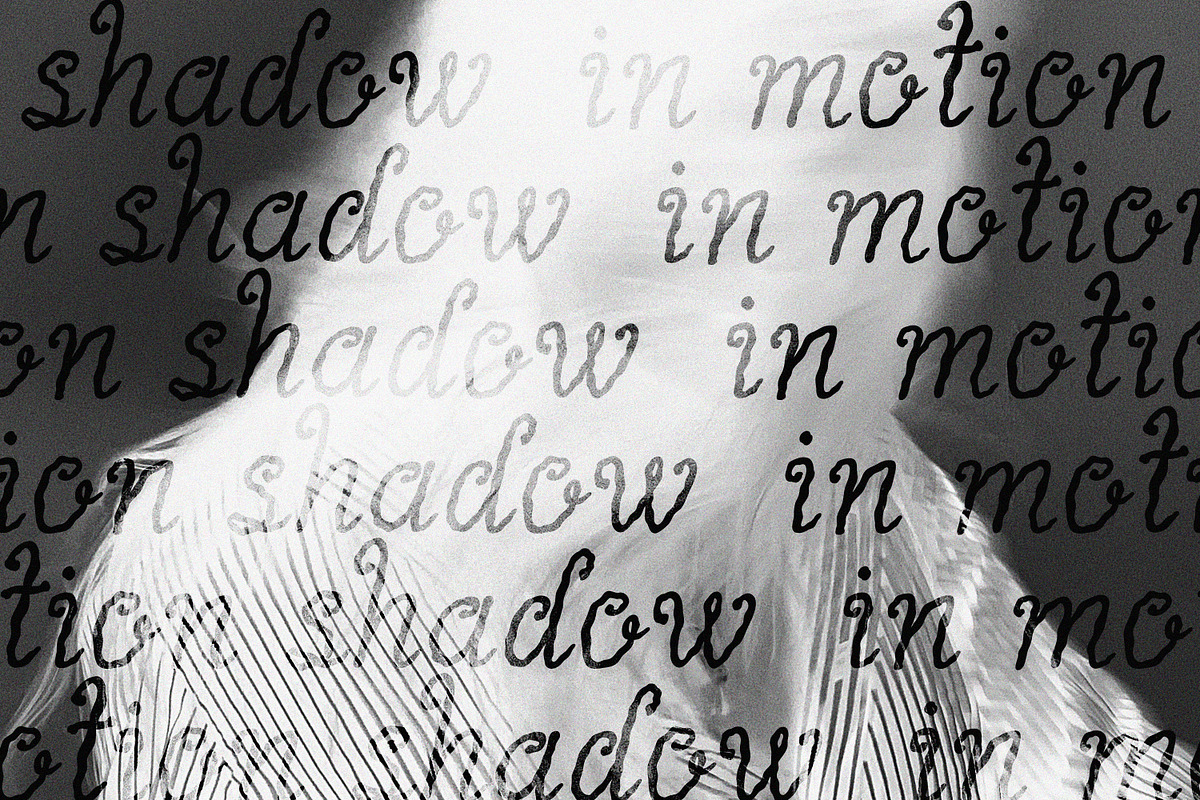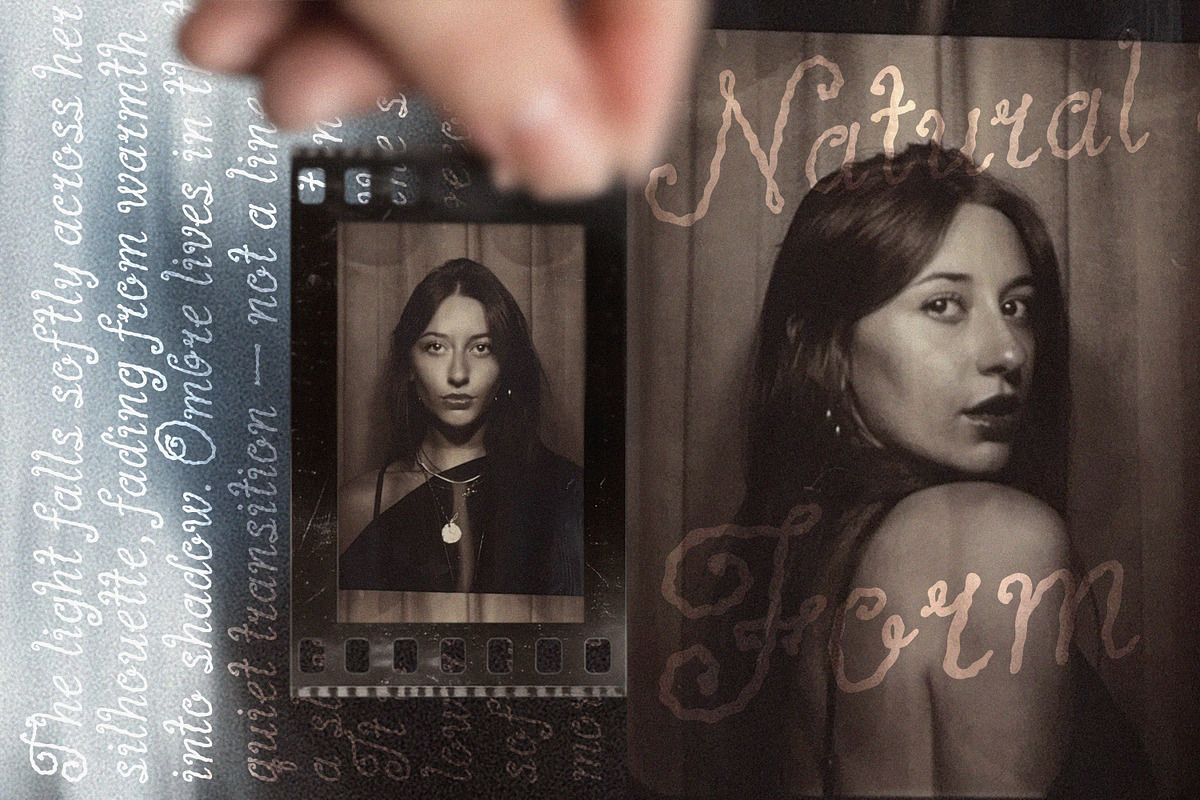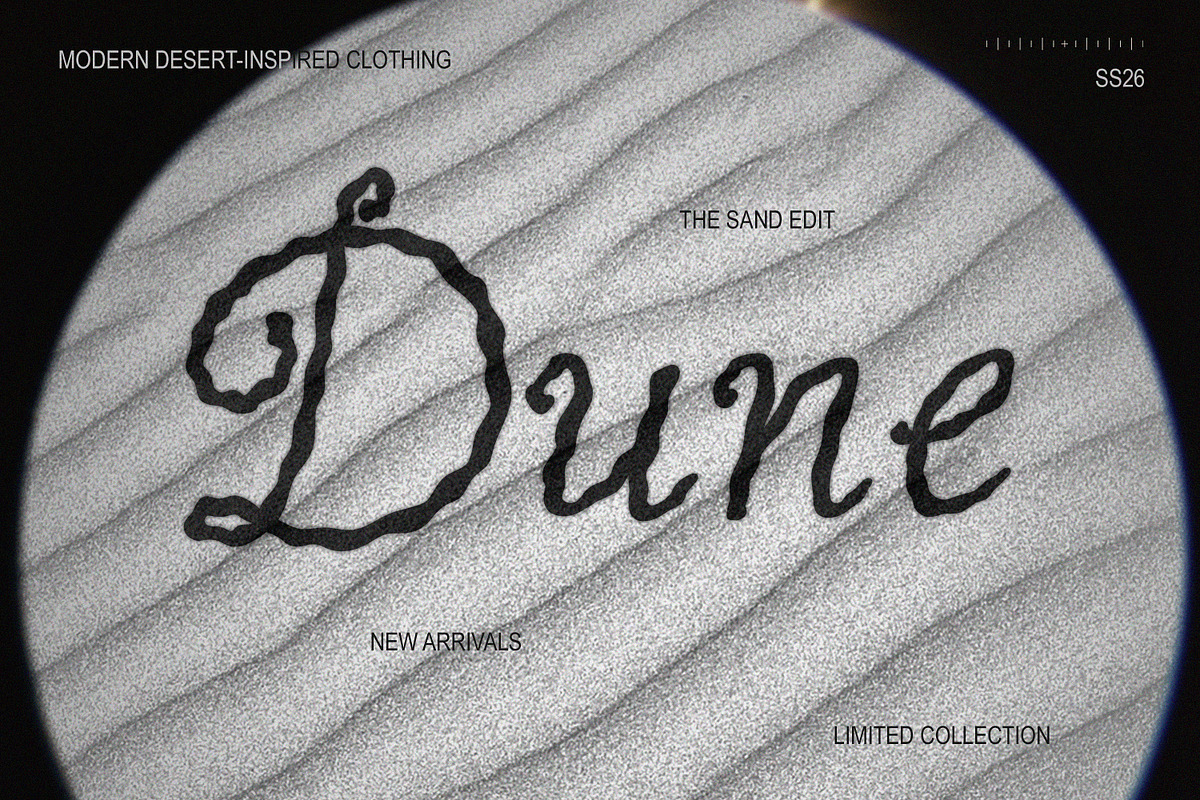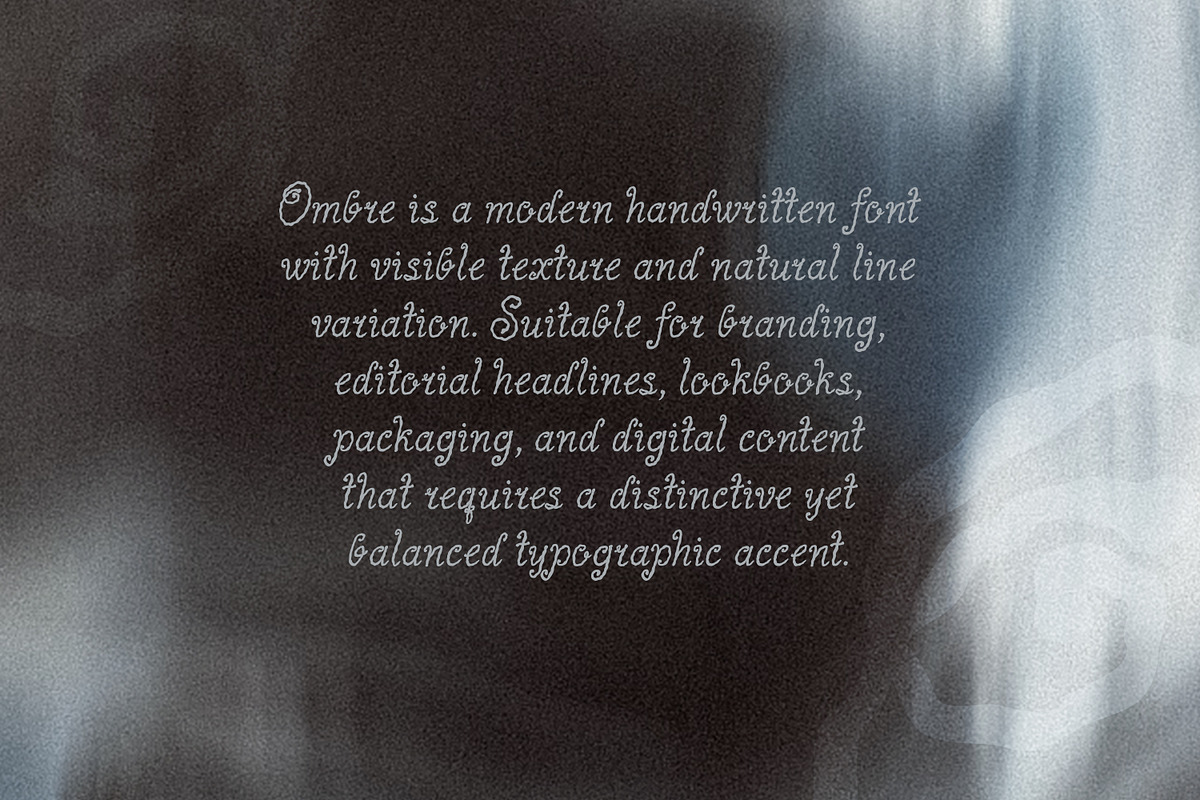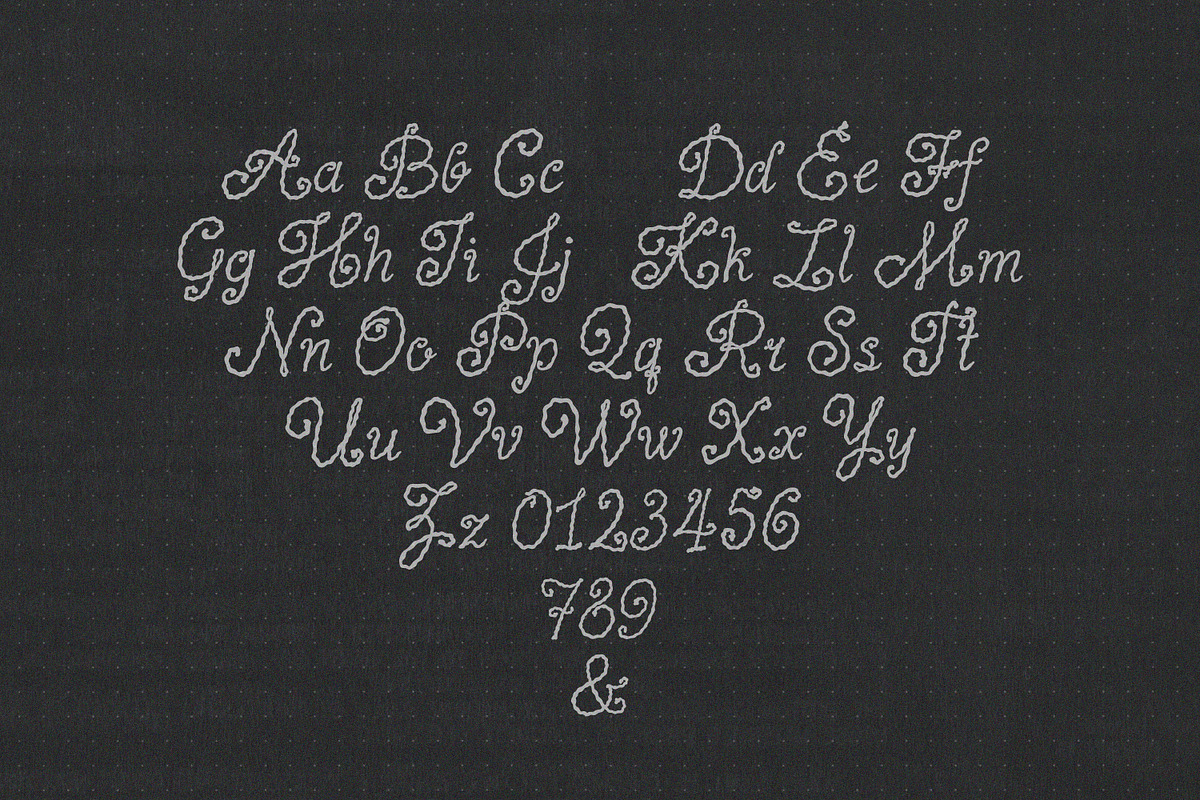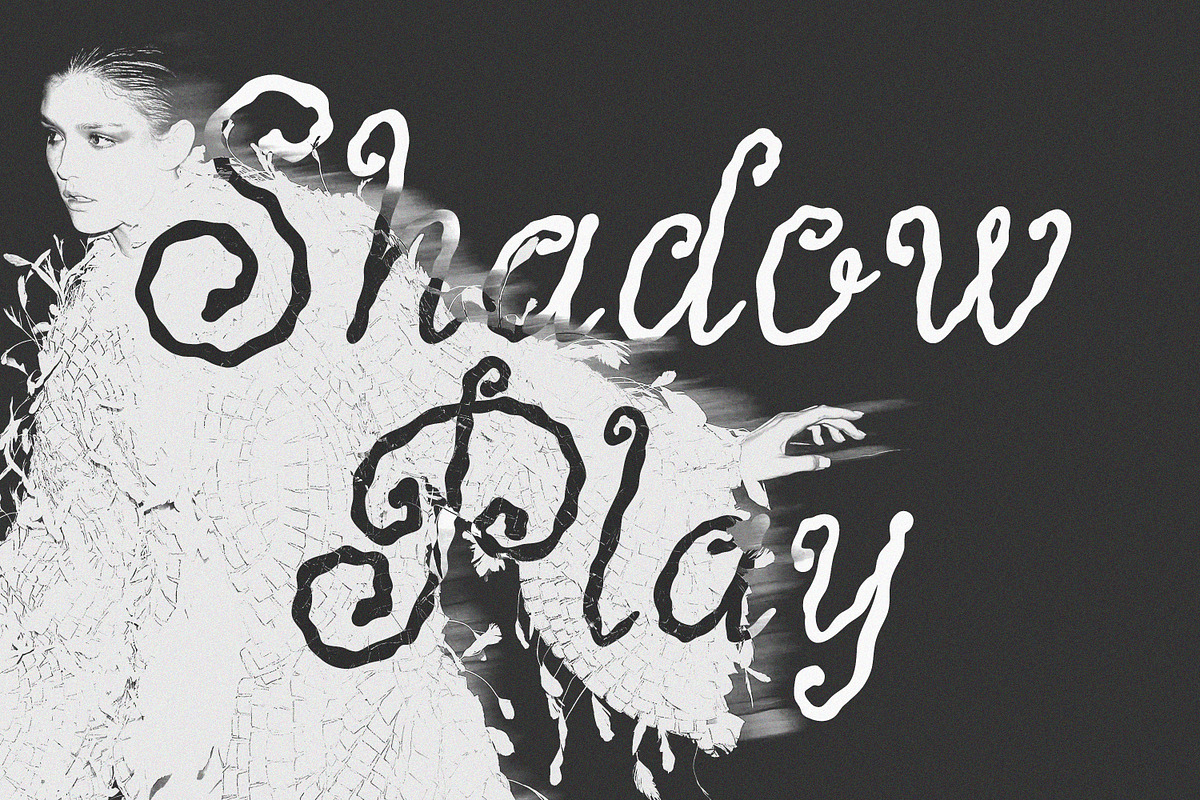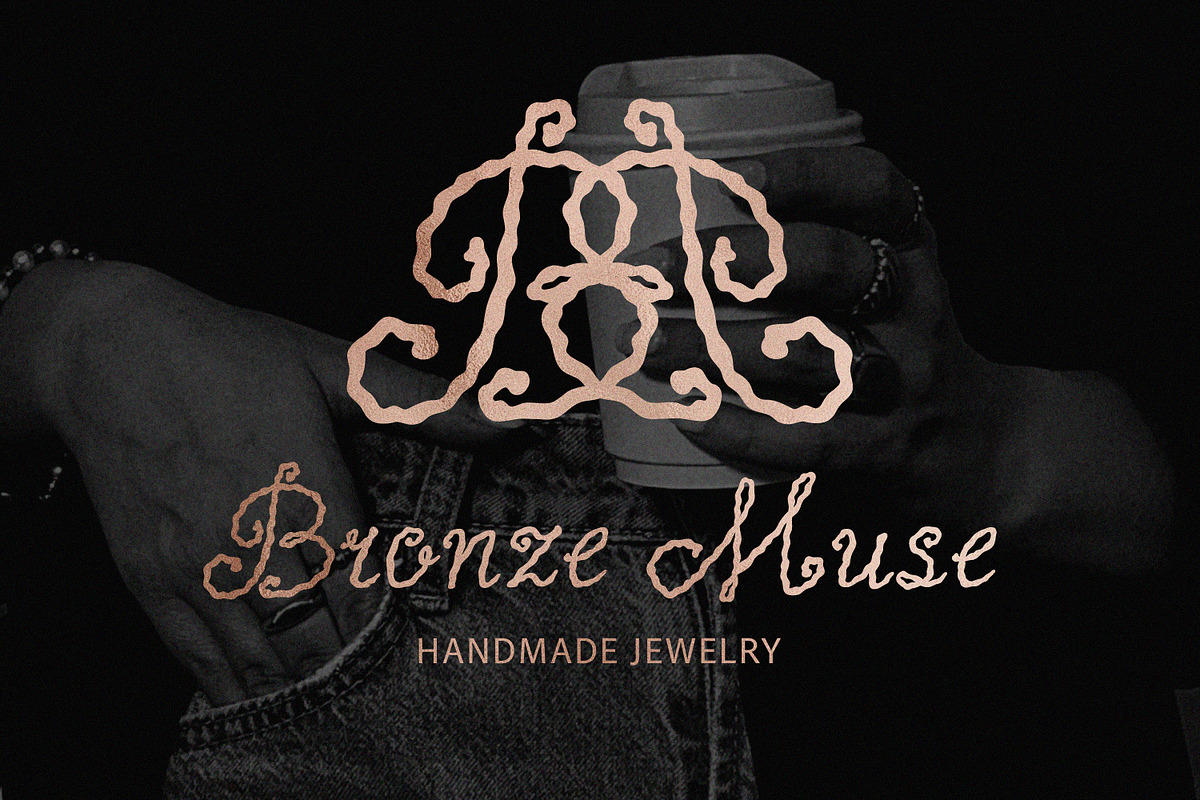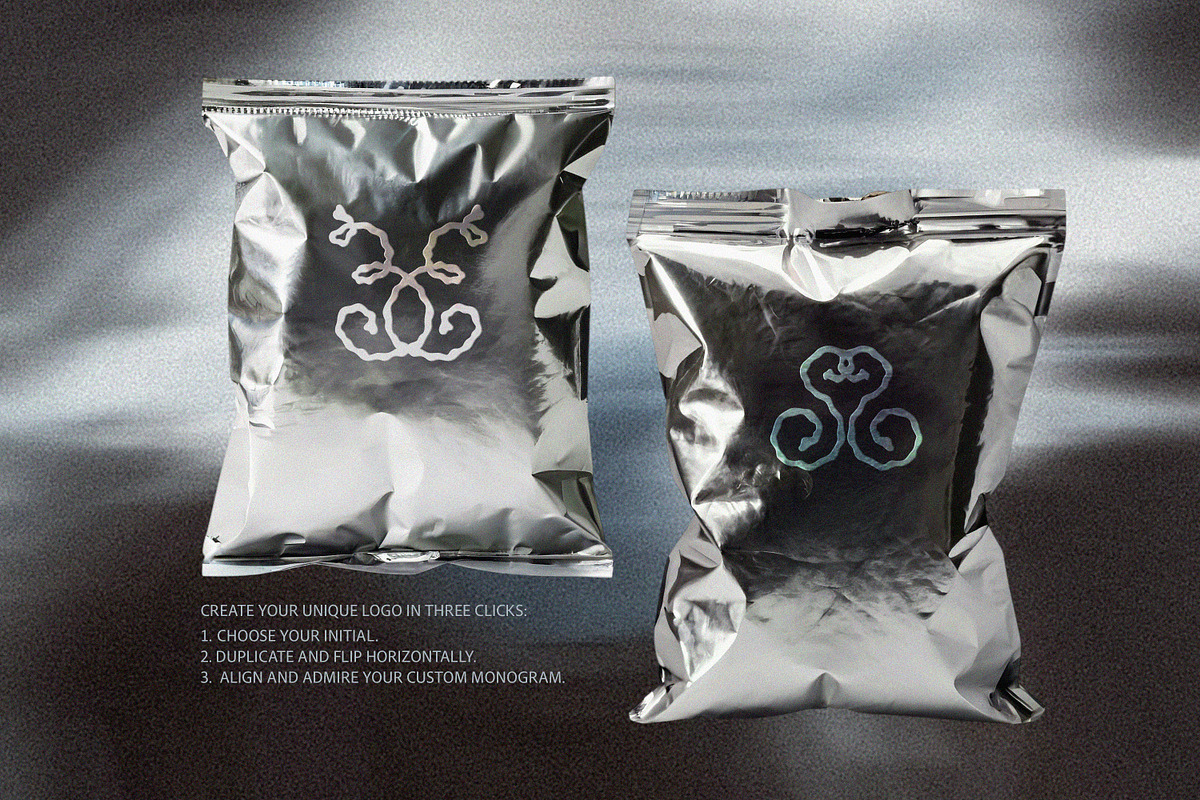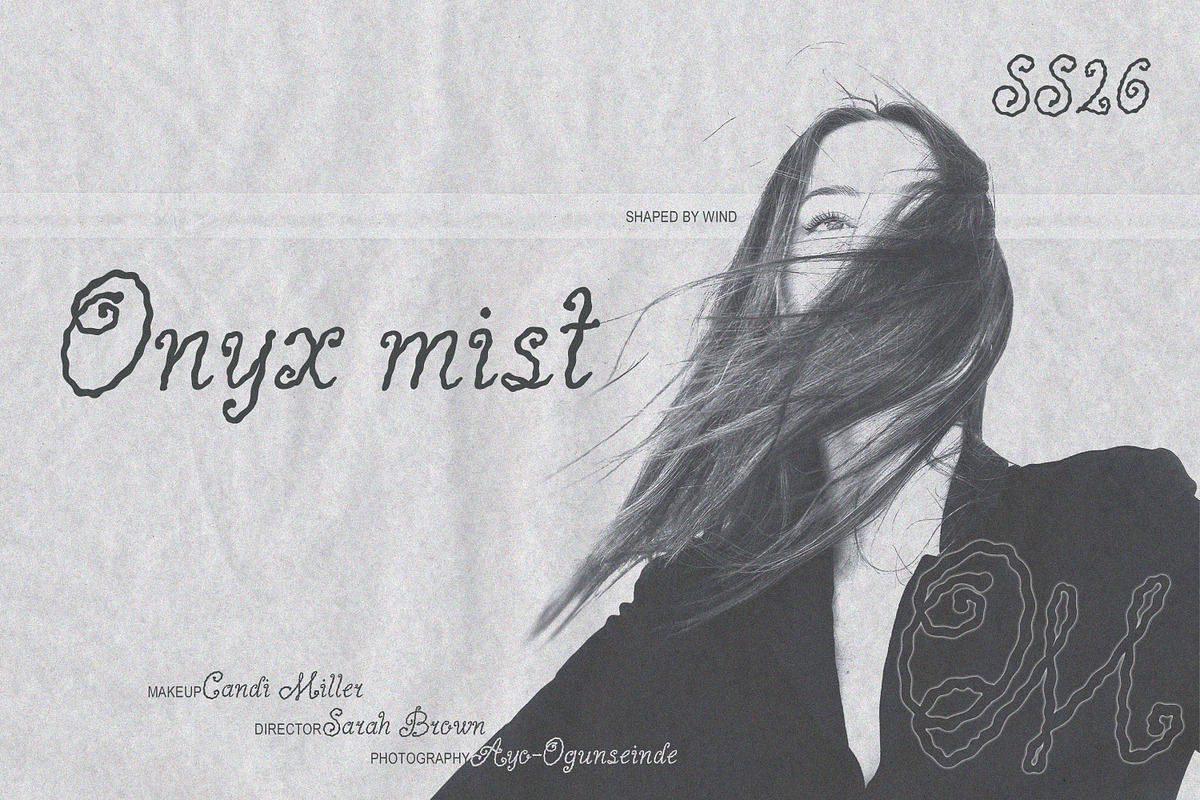
Ombre Handwritten Wavy Art Font
Ombre is a handwritten art font with textured, expressive lines, inspired by fashion-editorial aesthetics. Each character flows with elegance, creating a refined, artistic feel.
The font supports multiple languages, including Latin characters and special symbols, making it versatile for global design projects.
Perfect for logos, monograms, magazine covers, fashion branding, wedding and lifestyle projects, packaging, posters, and any design that demands style and visual individuality.